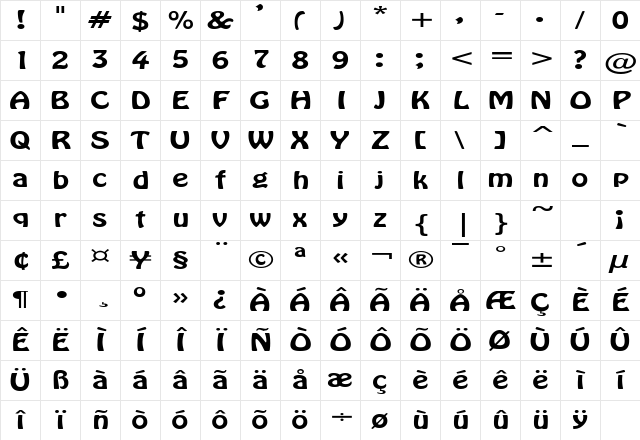
Complete GuthrieExtended Regular glyph index. Displaying only characters natively supported by GuthrieExtended Regular font.
GuthrieExtended is a composed and adaptable typeface that performs quietly and consistently across a wide range of design contexts.